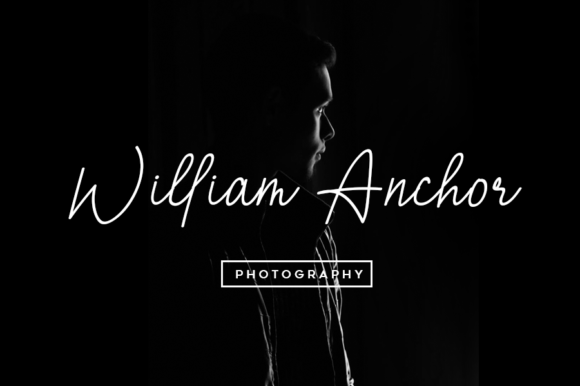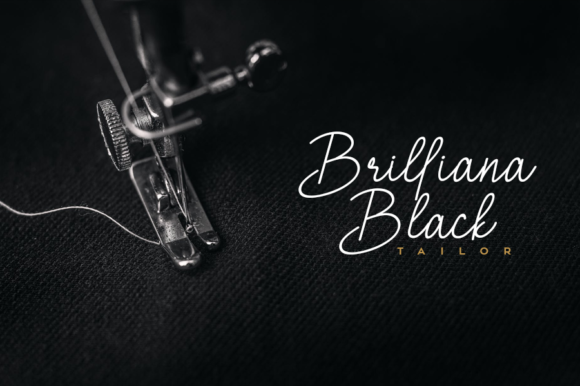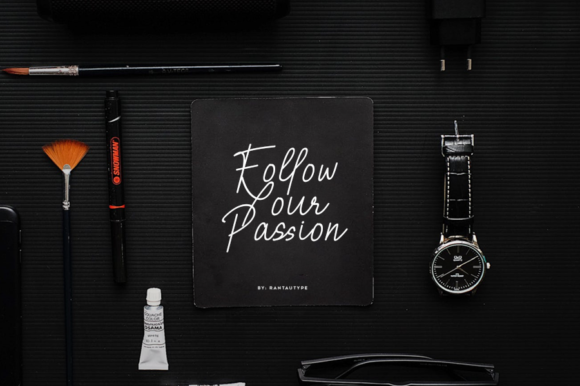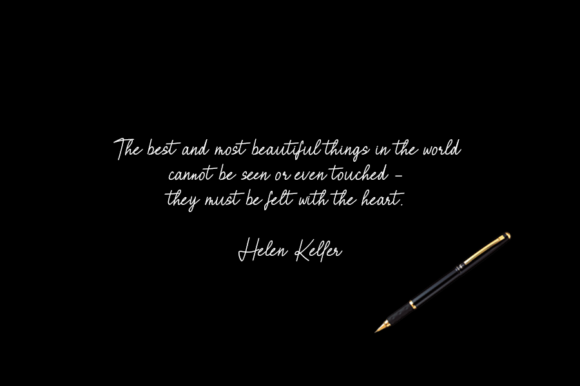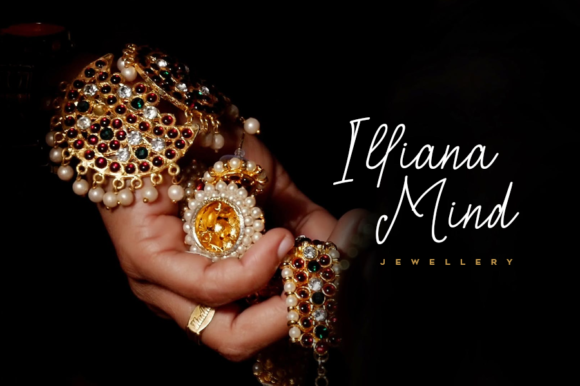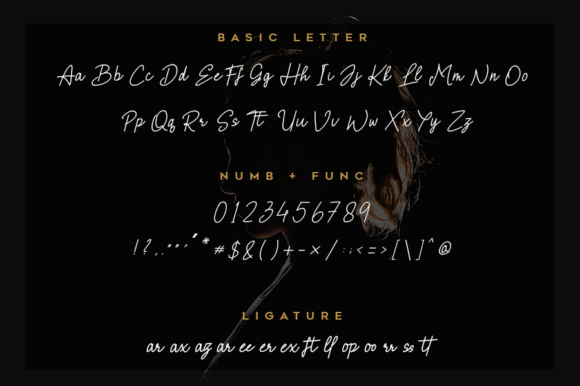
Brielle Font: Unleash Your Creativity with this Trendy Script
In the world of typography, fonts play a crucial role in conveying messages, expressing emotions, and creating a lasting impression. For designers, crafters, and creative enthusiasts, finding the perfect font can be a daunting task. However, if you’re looking for a trendy and unique script that exudes an authentic style, look no further than the Brielle Font. In this article, we’ll dive into the world of Brielle Font, exploring its features, benefits, and uses, as well as provide tips on how to get inspired by its bold look.
What is Brielle Font?
Brielle Font is a modern script font that has taken the design world by storm. Its unique blend of elegance and playfulness makes it an ideal choice for a wide range of creative projects. With its bold and authentic style, Brielle Font is perfect for designers and crafters looking to add a touch of sophistication and whimsy to their work.
Key Features of Brielle Font
- Unique Script Style: Brielle Font boasts a distinctive script style that sets it apart from other fonts. Its flowing lines and curves create a sense of movement and fluidity, making it perfect for headlines, titles, and creative projects.
- Bold and Authentic: Brielle Font’s bold look is both eye-catching and authentic. Its confident and adventurous vibe makes it ideal for designers and crafters who want to make a statement.
- Trendy and Modern: Brielle Font is a trendy and modern script font that is perfect for contemporary designs. Its fresh and youthful look makes it suitable for a wide range of projects, from branding and advertising to packaging and digital media.
- Highly Versatile: Brielle Font is an incredibly versatile font that can be used for various creative projects. Whether you’re designing a logo, creating a brochure, or crafting a social media post, Brielle Font is an excellent choice.
Benefits of Using Brielle Font
So, why should you choose Brielle Font for your creative projects? Here are just a few benefits of using this amazing font:
- Adds Visual Interest: Brielle Font’s unique and bold style adds visual interest to any design, making it perfect for grabbing attention and conveying messages.
- Enhances Creativity: With Brielle Font, you can unleash your creativity and experiment with different design ideas. Its versatility and flexibility make it an excellent choice for creative projects.
- Perfect for Branding: Brielle Font is an excellent choice for branding and advertising projects. Its bold and authentic style makes it perfect for creating memorable logos, taglines, and marketing materials.
Tips for Getting Inspired by Brielle Font
Now that you’ve discovered the amazing Brielle Font, here are some tips to help you get inspired by its bold look:
- Experiment with Different Design Ideas: Don’t be afraid to experiment with different design ideas using Brielle Font. Try pairing it with other fonts, colors, and graphics to create unique and creative designs.
- Play with Typography: Brielle Font is a script font that lends itself well to typography. Play with different font sizes, styles, and arrangements to create visually appealing designs.
- Use it for Headlines and Titles: Brielle Font is perfect for headlines and titles. Use it to add a touch of elegance and sophistication to your designs.
In conclusion, Brielle Font is a trendy and unique script font that is perfect for designers, crafters, and creative enthusiasts. Its bold and authentic style makes it an excellent choice for a wide range of creative projects, from branding and advertising to packaging and digital media. With its versatility, flexibility, and eye-catching design, Brielle Font is sure to inspire your creativity and take your designs to the next level.